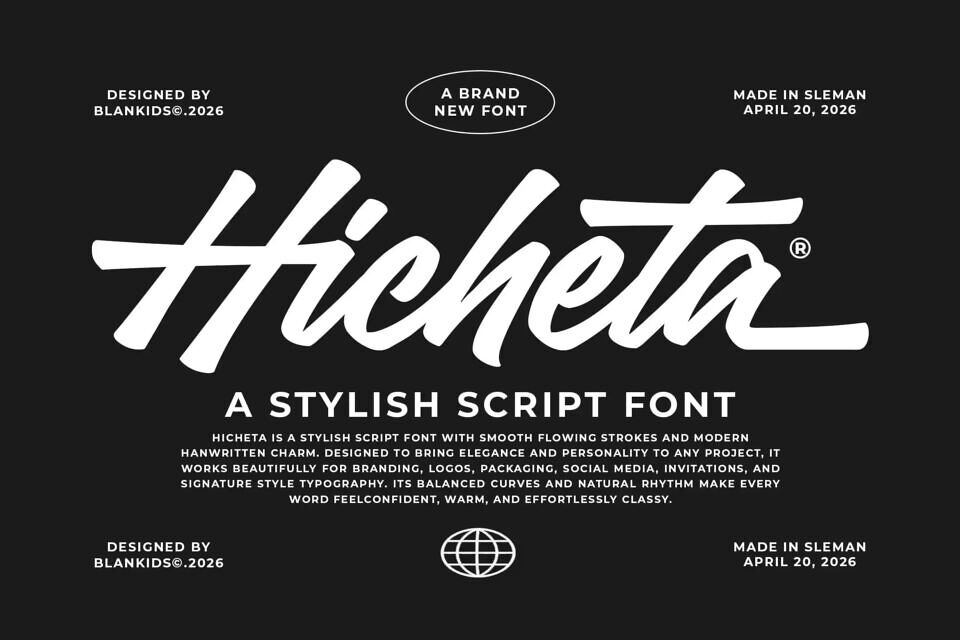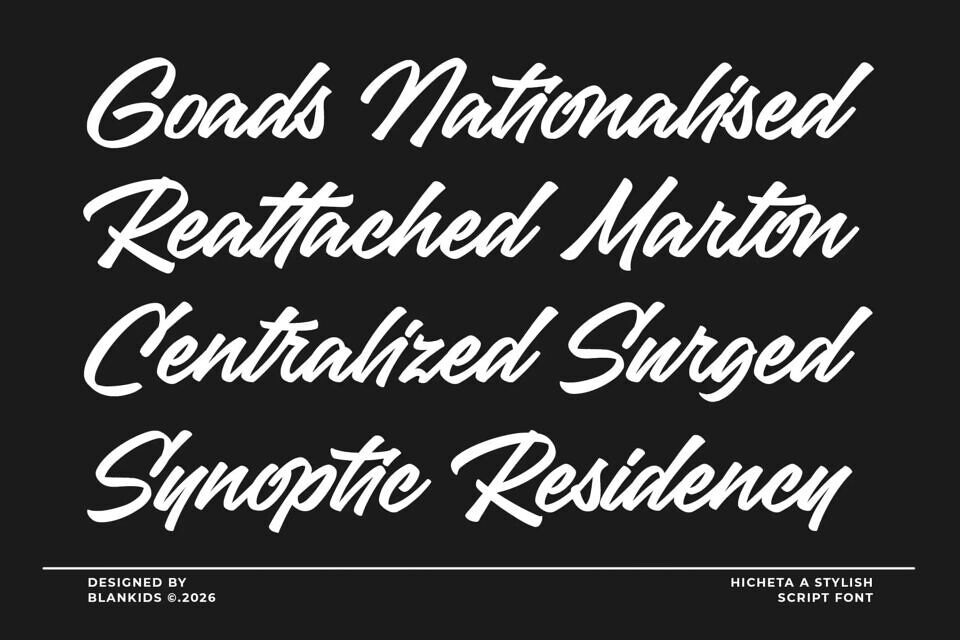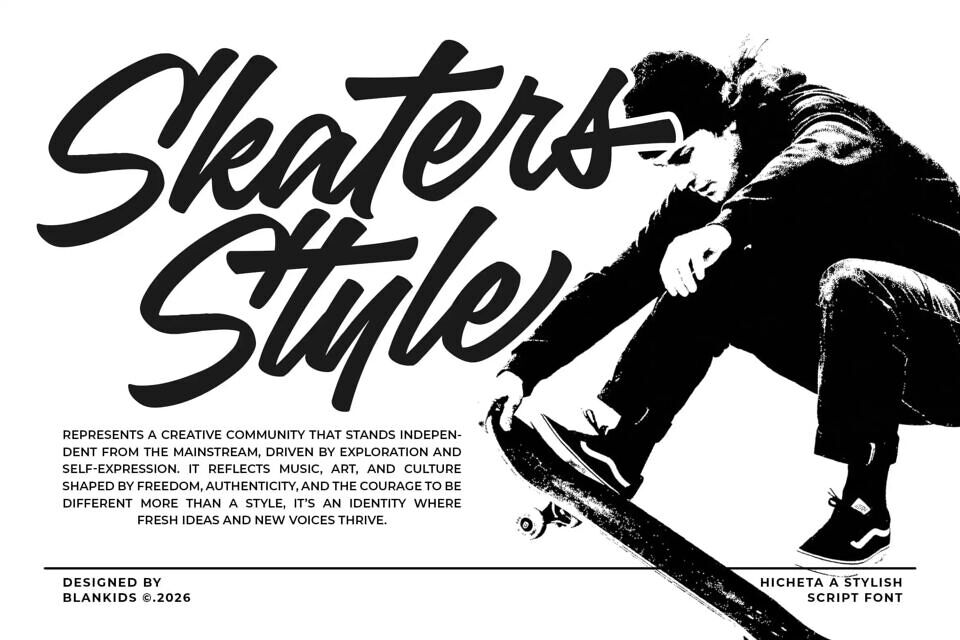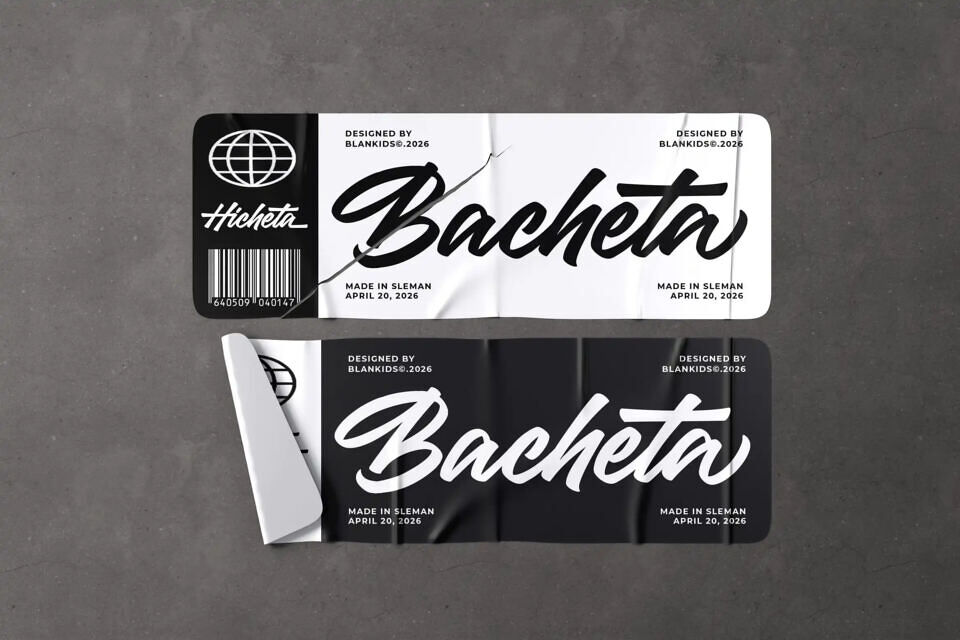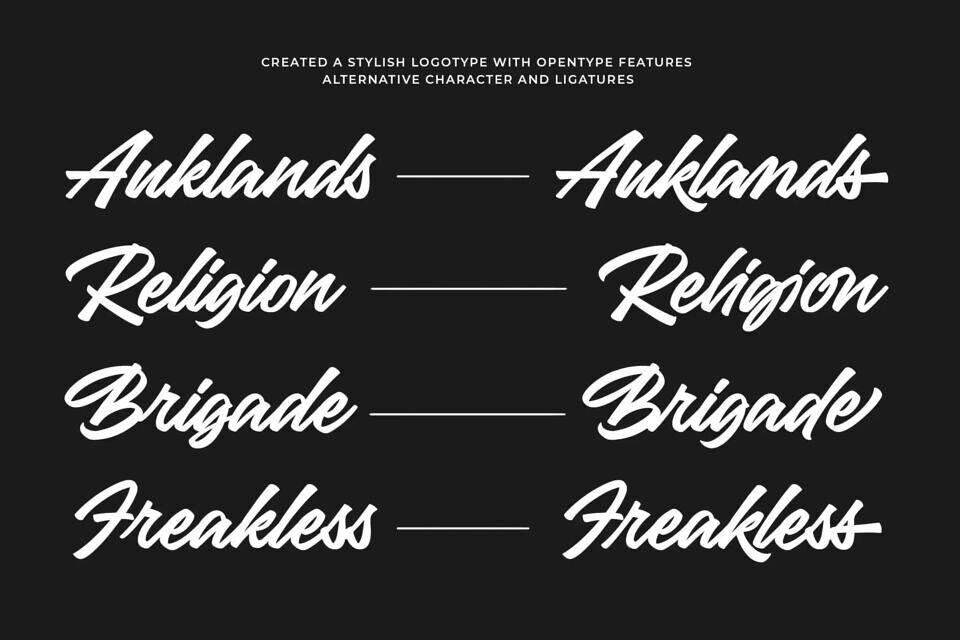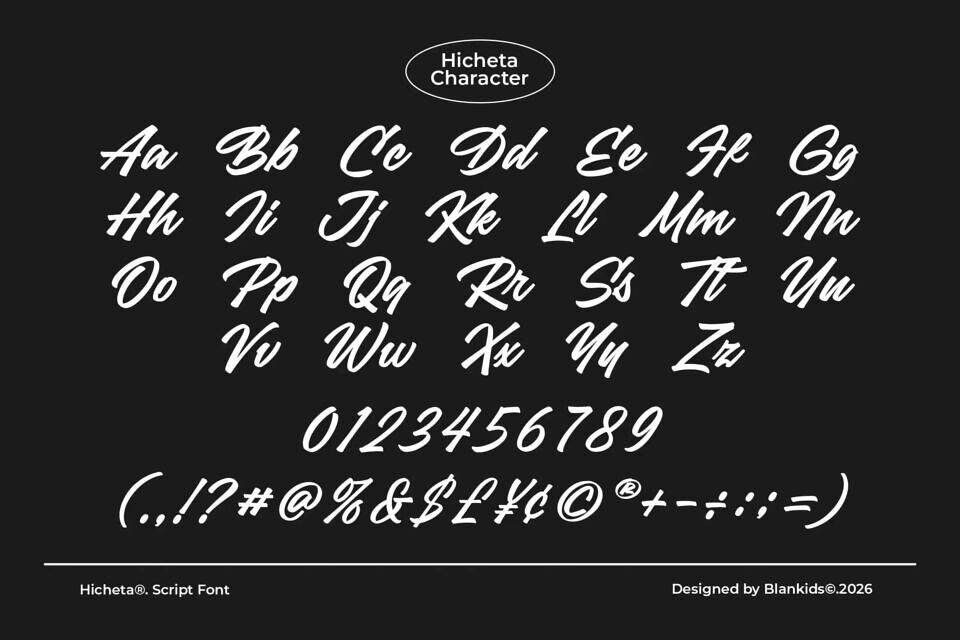
Hicheta Font
Hicheta is a modern stylish script font designed to bring bold personality and effortless elegance into contemporary design. Crafted with smooth flowing strokes, strong rhythm, and eye-catching ligatures, Hicheta delivers a natural handwritten feel while staying clean and highly legible across digital and print projects.
Built for today’s design trends, Hicheta combines urban script aesthetics with branding-ready versatility, making it perfect for creators who want typography that feels expressive, confident, and instantly recognizable.